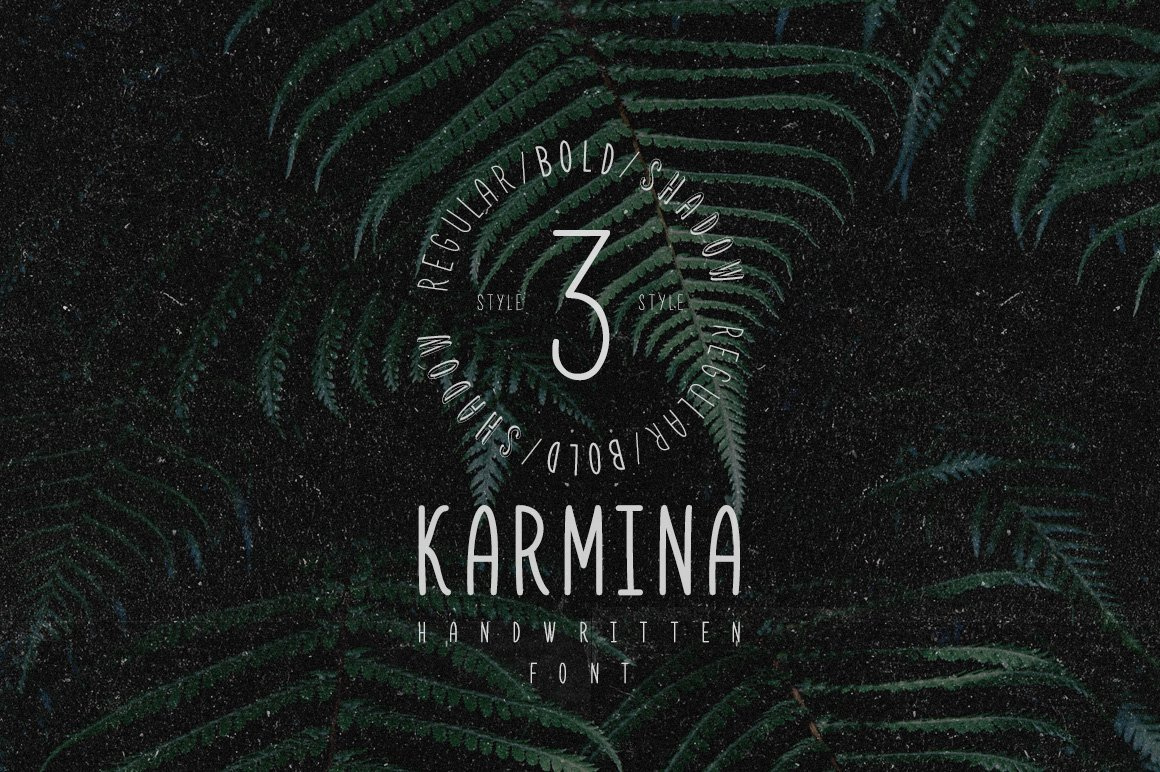
Karmina Handwritten Font
Karmina Handwritten Font is perfect for personal stationery design, handwritten note services, intimate wedding invitations, personal coaching brands, heartfelt greeting cards, and authentic personal branding. Its personal character makes it ideal for handwritten letter services, personal diary publishers, intimate counseling practices, heartfelt thank-you note companies, personal memoir writing, and any project requiring intimate authenticity with handwritten warmth and personal connection appeal.
This font is exciting because it captures the intimate warmth and personal touch of genuine handwriting while delivering exceptional functionality for brands seeking to create authentic personal connections and heartfelt communications in our increasingly digital world. The lovingly crafted letterforms feel like they were written by a caring friend, creating typography that bridges the gap between digital efficiency and human intimacy with genuine personal warmth.
The Karmina Handwritten Font family typically includes Regular, Bold, and decorative variations with personal alternates, intimate ligatures, and handwritten elements that enhance its authentic personality. This comprehensive collection enables personal service professionals to create genuine brand systems that maintain handwritten credibility while offering creative flexibility for various intimate applications requiring both personal authenticity and contemporary personal service market positioning.